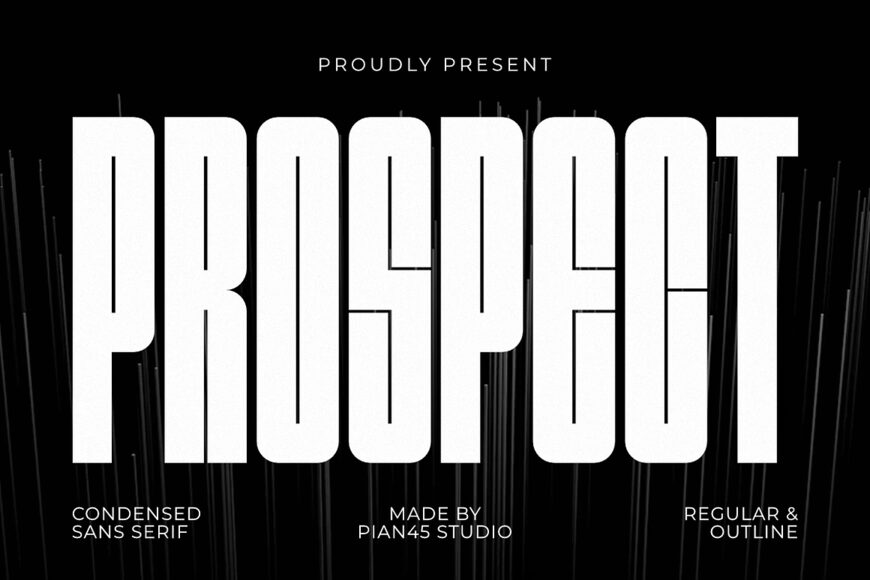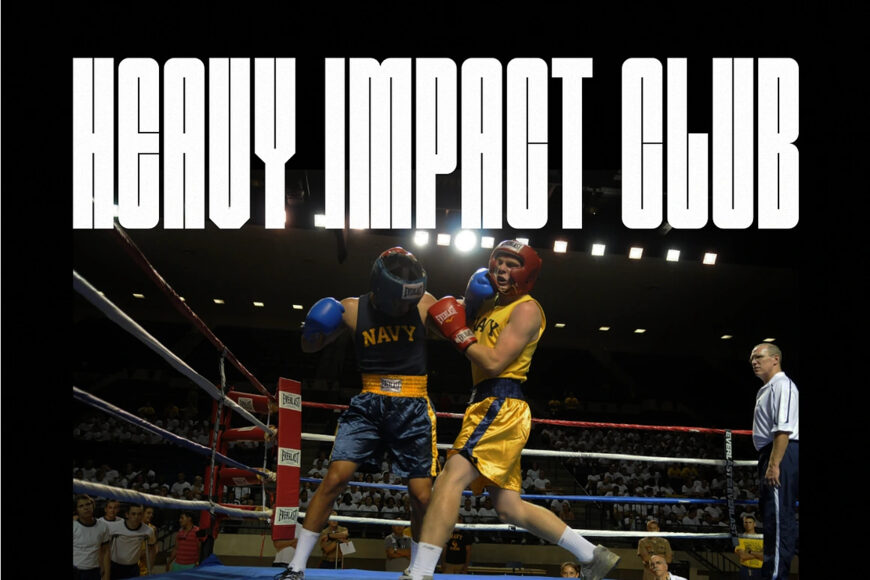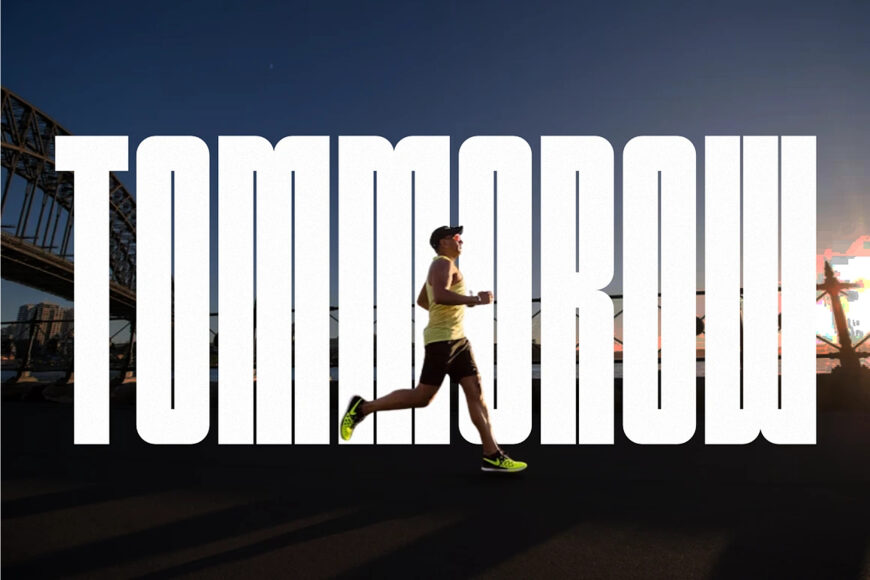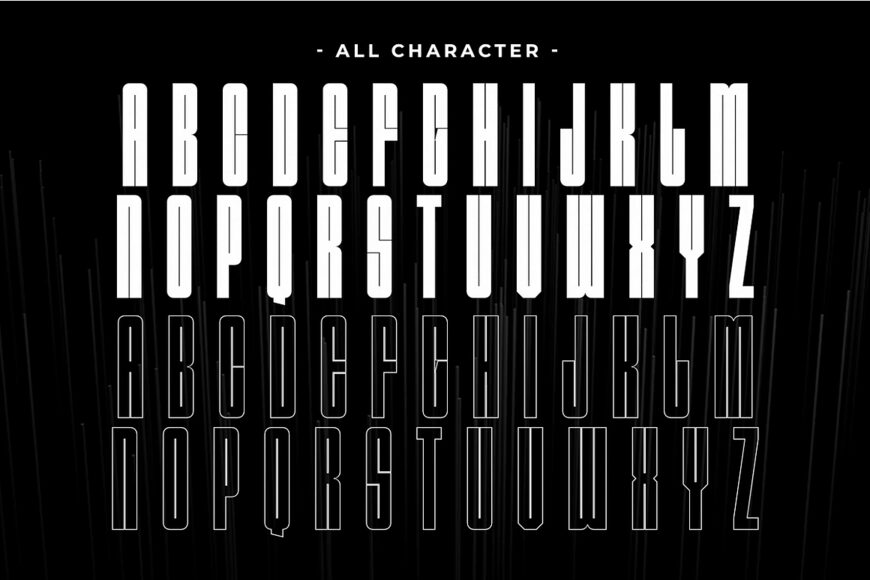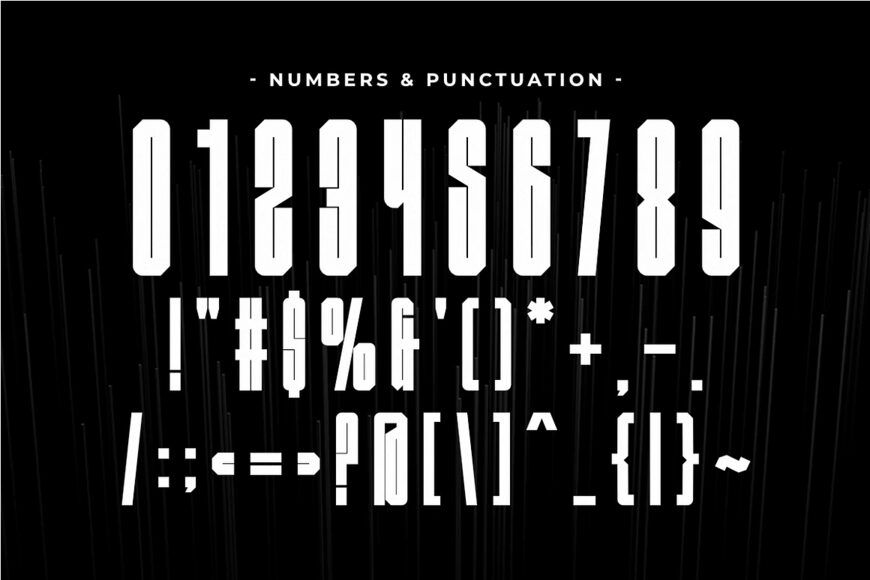
Prospect Font
Prospect is a sleek, forward-looking Modern Condensed Sans Serif font engineered for futuristic vision and high-impact branding. Featuring tall vertical proportions, smooth rounded outer corners, and clean geometric lines, this typeface comes with both Regular and Outline styles to offer maximum versatility.
Designed in a space-saving condensed typeface structure, it is the ultimate choice for futuristic branding, tech startup logos, urban streetwear apparel, cinematic titles, and modern magazine layouts.